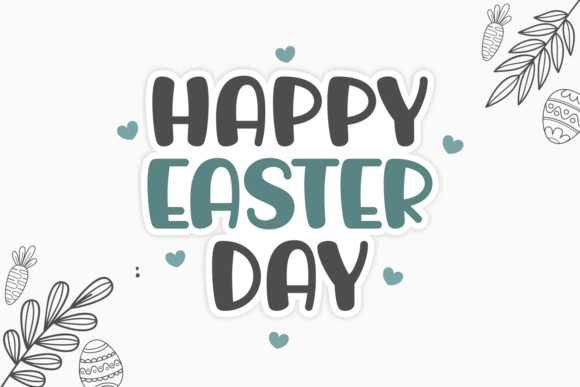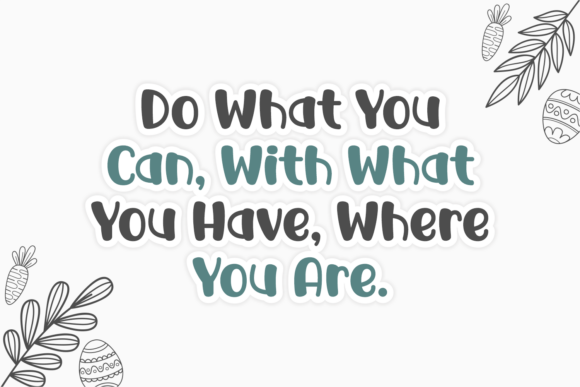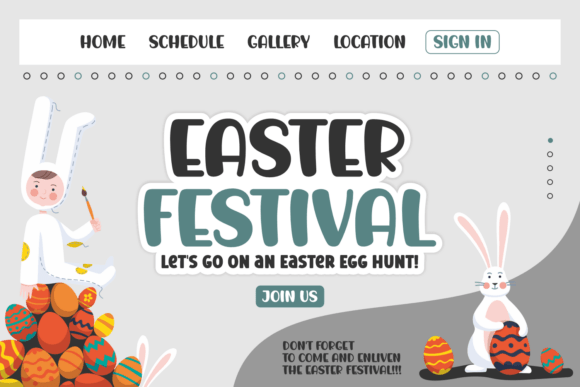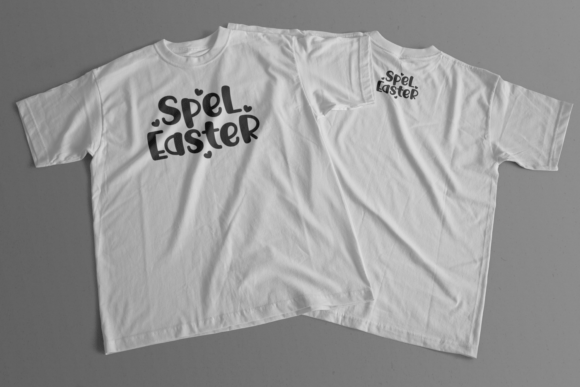
Easter Stcord Font: Add a Touch of Whimsy to Your Seasonal Designs
Are you looking for a font that can bring a sense of joy and friendliness to your Easter designs? Look no further than Easter Stcord, a playful and cheerful display font perfect for seasonal crafts, kids’ projects, greeting cards, and more. With its bouncy letterforms, rounded shapes, and cute heart accents, Easter Stcord is sure to add a touch of whimsy and charm to any design.
What Makes Easter Stcord Special?
Easter Stcord is a unique and eye-catching font that stands out from the crowd. Its playful and cheerful design makes it perfect for Easter-themed designs, but it’s also versatile enough to be used for other fun and creative projects. Here are some of the key features that make Easter Stcord special:
- Bouncy letterforms: Easter Stcord’s letters have a bouncy, energetic feel that’s sure to bring a smile to your face. The font’s playful letterforms are perfect for creating fun and lively designs.
- Rounded shapes: The font’s rounded shapes give it a soft and friendly feel that’s perfect for kids’ projects, greeting cards, and other designs where you want to convey a sense of warmth and approachability.
- Cute heart accents: Easter Stcord’s heart accents add an extra touch of whimsy and charm to the font. They’re perfect for creating Easter-themed designs, but can also be used in other designs where you want to add a touch of sweetness.
Perfect for Easter Crafts and Designs
Easter Stcord is the perfect font for Easter crafts and designs. Whether you’re creating Easter cards, decorations, or other seasonal projects, this font is sure to add a touch of fun and whimsy. Here are some ideas for using Easter Stcord in your Easter designs:
- Easter cards: Use Easter Stcord to create fun and playful Easter cards for friends and family.
- Easter decorations: Add a touch of whimsy to your Easter decorations with Easter Stcord. Use the font to create signs, banners, and other decorative elements.
- Kids’ projects: Easter Stcord is perfect for kids’ projects, such as creating Easter-themed coloring pages, crafts, and other activities.
Ideal for Other Fun Designs
While Easter Stcord is perfect for Easter designs, it’s also versatile enough to be used for other fun and creative projects. Here are some ideas for using Easter Stcord in other designs:
- Birthday cards: Use Easter Stcord to create fun and playful birthday cards for kids and adults.
- Children’s party decorations: Add a touch of whimsy to children’s party decorations with Easter Stcord. Use the font to create signs, banners, and other decorative elements.
- Social media graphics: Use Easter Stcord to create fun and engaging social media graphics, such as Easter-themed Facebook posts and Instagram stories.
Tips for Using Easter Stcord
Here are some tips for using Easter Stcord in your designs:
- Use it sparingly: Easter Stcord is a bold and playful font, so it’s best to use it sparingly. Use it for headings and titles, and a simpler font for body text.
- Experiment with colors: Easter Stcord looks great in bright and pastel colors. Experiment with different colors to find the perfect look for your design.
- Pair it with other fonts: Easter Stcord can be paired with other fonts to create a unique and interesting look. Try pairing it with a simpler font for a fun and playful contrast.
In conclusion, Easter Stcord is a playful and cheerful display font that’s perfect for Easter designs and other fun and creative projects. With its bouncy letterforms, rounded shapes, and cute heart accents, it’s sure to add a touch of whimsy and charm to any design. So why not give Easter Stcord a try and see how it can bring a sense of joy and friendliness to your designs?